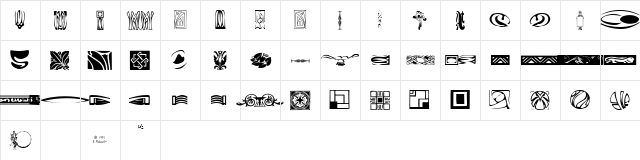
GriffinDingbats2 Normal
Design Context for GriffinDingbats2 Typeface
GriffinDingbats2 is a composed and adaptable typeface that performs quietly and consistently across a wide range of design contexts.